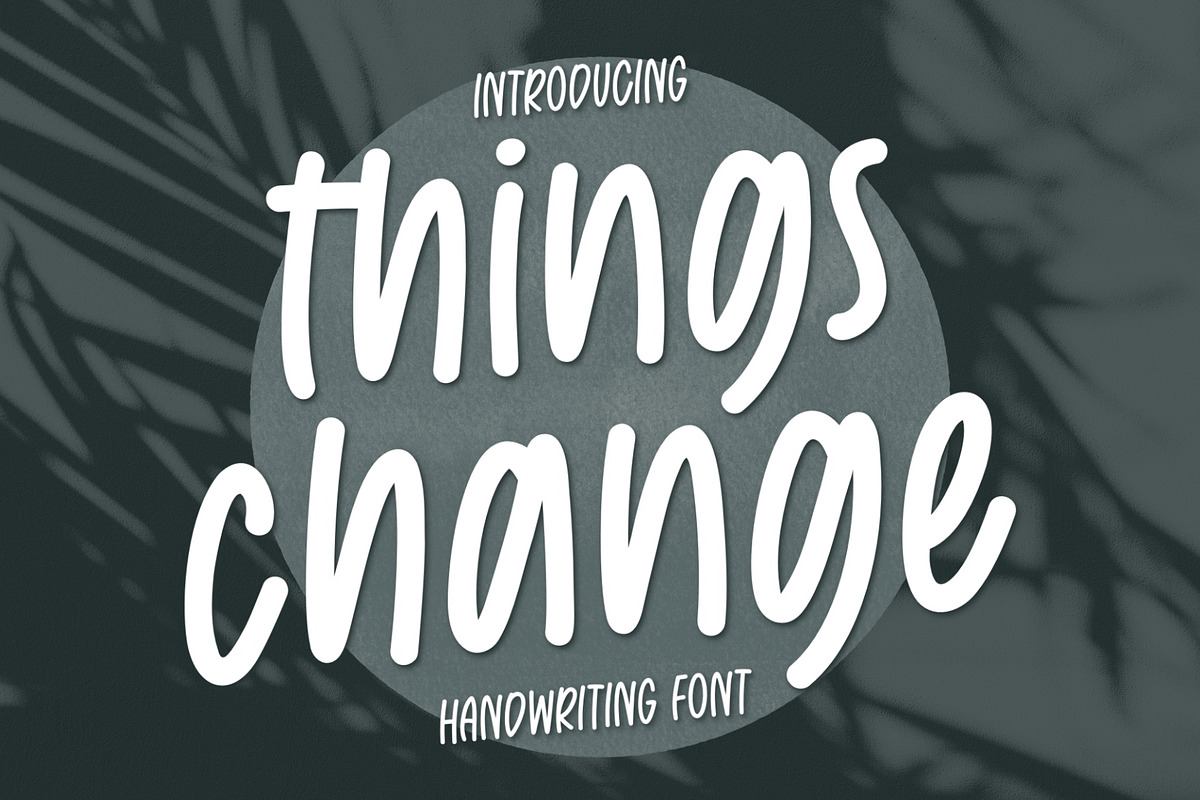
Things Change Handwritten Font Free Download is a stylish, expressive handwritten typeface with a personal and organic feel. Featuring smooth, flowing strokes and subtle imperfections, this font is perfect for creating invitations, branding, greeting cards, logos, and social media graphics. It brings an authentic, human touch to your designs, making them feel personal and unique.
Using the Things Change Handwritten Font Free Download adds a casual and warm vibe to your typography. Whether you're designing a custom logo, crafting a heartfelt message, or creating engaging digital content, this font adds personality and creativity to your work.